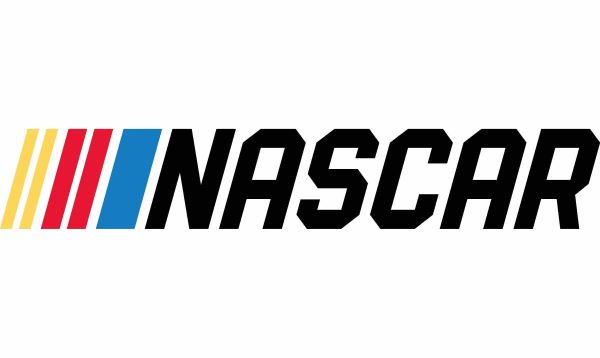
Nascar Font
What is The Font Of Nascar?
The NASCAR font is best represented by Racer Italic, a dynamic display typeface created by FG Studios. Designed with speed-inspired angles, bold strokes, and high-motion styling, Racer effectively captures the fast-paced energy associated with the NASCAR brand. The font comes in two styles — Racer Regular and Racer Italic — offering flexibility for racing-themed graphics, fan projects, and high-impact designs. Racer Italic is free for personal use, making it an accessible option for non-commercial work.
About NASCAR
NASCAR (National Association for Stock Car Auto Racing), founded in 1948, is a premier American motorsport organization known for its high-speed stock car racing events. Best recognized for series such as the NASCAR Cup Series, the organization attracts millions of fans with its intense competition, iconic drivers, and legendary tracks including Daytona, Talladega, and Charlotte.
NASCAR has become a major part of American sports culture, blending adrenaline-fueled action with long-standing traditions. Its bold visual identity, including slanted lettering and vibrant colors, reflects the sport’s themes of speed, power, and excitement — making it instantly recognizable around the world.